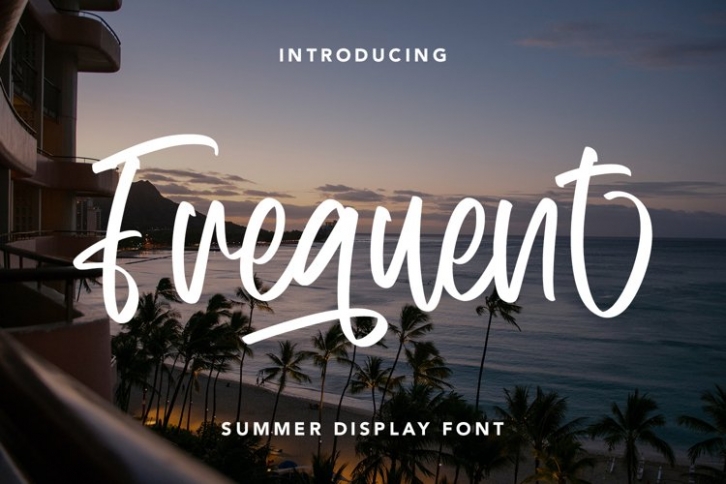
Frequent is a gorgeous font that was realeased on August 20, 2021. The font can be used in many style contexts and design environments. Perfect for invitations, magazines, websites, logos, and more! It was designed by plusstore and the file size is 14.15 MB. Thanks for checking out this font!